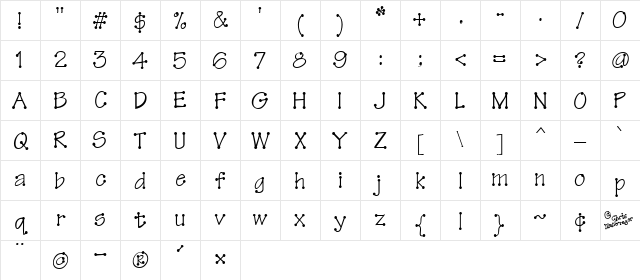
Complete ThreadFun Regular glyph index. Displaying only characters natively supported by ThreadFun Regular font.
ThreadFun has an approachable, lighthearted character - its loose, expressive forms are well-suited to children's content, casual branding, and fun-first design.
Well-suited to food and beverage brands with personality, educational materials, and fun-forward identities.
Font Pairing: Pairs well with a rounded or humanist sans for body copy, maintaining the friendly tone without relying on ThreadFun to carry extended reading.
Pro Tip: Use ThreadFun at larger display sizes where its expressive character can land. Pair with a clean, simple sans for body copy to maintain readability.